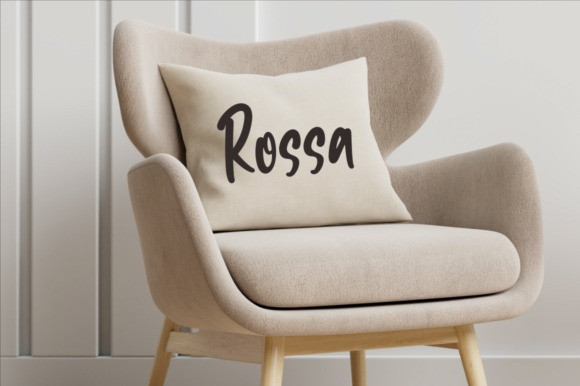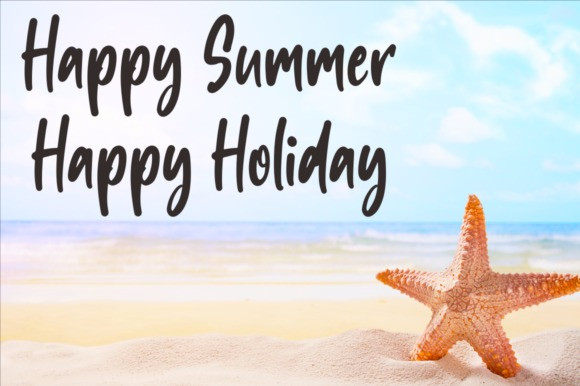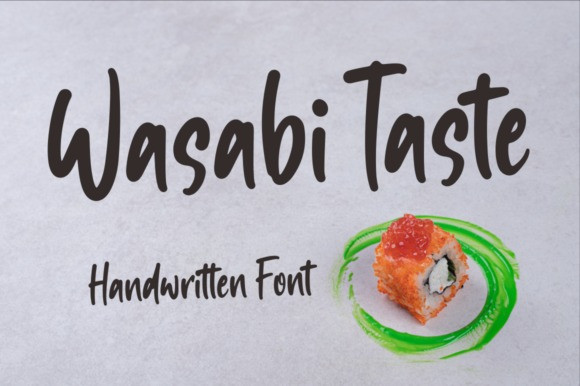
True Message Script Font
True Message is script font that suitable for branding projects, logo, wedding designs, visiting cards, social media posts, advertisements, product packaging, product designs, label, photography, watermark, invitation, stationery and any projects that need unique handwriting taste.